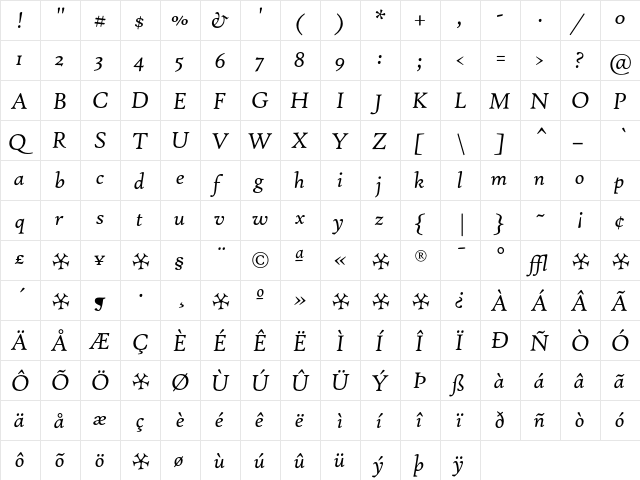
Hightower TextItalic
Design Context for Hightower Typeface
Hightower takes a measured approach to typography — its balanced proportions and neutral character make it a reliable workhorse for both digital and print work. Its italic angle brings a sense of urgency and motion to the letterforms.
Pro Tip: Try Hightower for annotation and caption copy alongside an upright companion — the contrast in angle creates a dynamic but ordered typographic system.